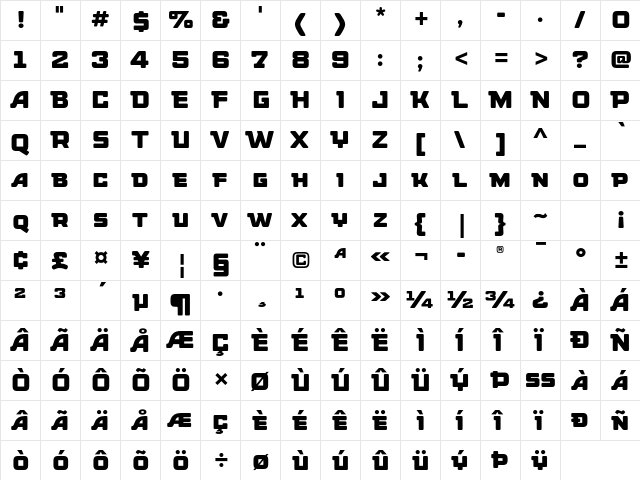
Deli Deluxe ITC Std Regular
| Designer | Jim Spiece |
Design Context for Deli Deluxe ITC Std Typeface
Deli Deluxe ITC Std takes a measured approach to typography — its balanced proportions and neutral character make it a reliable workhorse for both digital and print work.